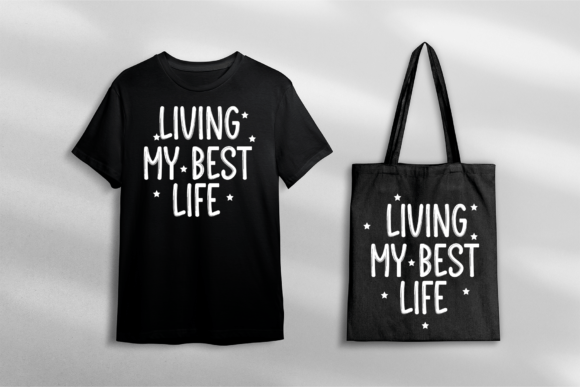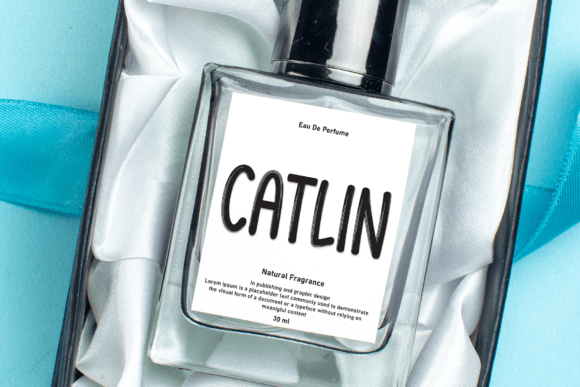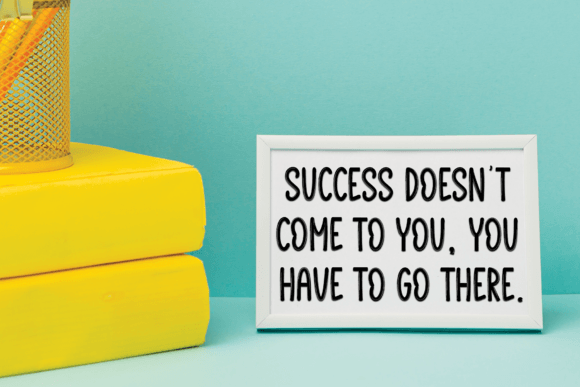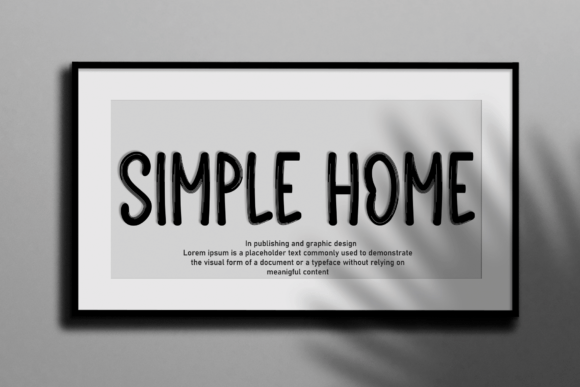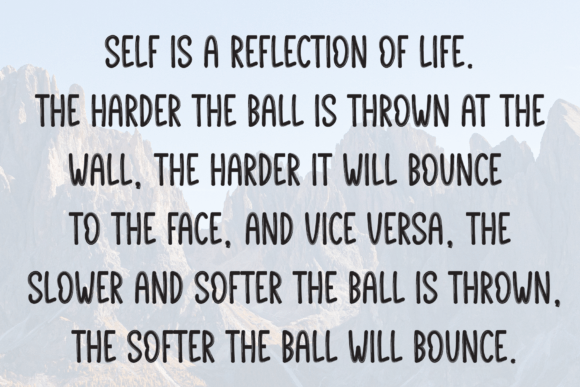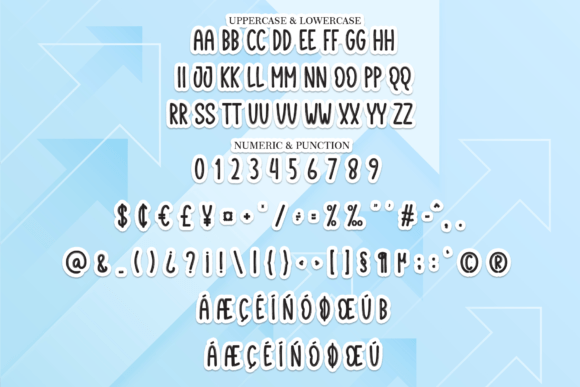
Introducing Advantage Font: The Ultimate Display Font for Modern Designers and Crafters
In the world of design, typography plays a crucial role in conveying messages, expressing creativity, and capturing attention. When it comes to display fonts, designers and crafters are always on the lookout for something fresh, trendy, and versatile. This is where Advantage Font comes in – an all-caps display font that is taking the design world by storm. In this article, we’ll dive into the features, benefits, and uses of Advantage Font, and explore why it’s becoming a favorite among designers and crafters.
What is Advantage Font?
Advantage Font is a stylish, all-caps display font that boasts the perfect amount of trendiness. Its unique design makes it an excellent choice for a wide range of applications, from digital designing and presentations to crafting and greeting card making. With its clean lines, elegant curves, and bold presence, Advantage Font is sure to make your designs stand out from the crowd.
Key Features of Advantage Font
- All-caps design: Advantage Font features an all-caps design that exudes confidence and sophistication. Its bold and eye-catching appearance makes it perfect for headlines, titles, and emphasis.
- Trendy and modern: This font is designed to keep up with the latest design trends. Its modern aesthetic ensures that your designs look fresh and up-to-date.
- Versatile: Advantage Font is incredibly versatile and can be used for a wide range of applications, including digital designing, presentations, crafting, and greeting card making.
- Elegant curves: The font features elegant curves that add a touch of sophistication to your designs.
- Clean lines: The clean lines of Advantage Font ensure that your designs look crisp and professional.
Benefits of Using Advantage Font
So, why should designers and crafters choose Advantage Font for their projects? Here are just a few benefits of using this amazing display font:
- Save time: With Advantage Font, you can create stunning designs in no time. Its bold and eye-catching appearance ensures that your designs grab attention quickly.
- Enhance creativity: This font is designed to inspire creativity and help you think outside the box. Its unique design ensures that your designs stand out from the crowd.
- Professional look: Advantage Font gives your designs a professional look that’s sure to impress clients, colleagues, and friends.
Uses of Advantage Font
Advantage Font is an incredibly versatile font that can be used for a wide range of applications, including:
- Digital designing: Use Advantage Font to create stunning social media graphics, blog posts, and website headers.
- Presentations: Add a touch of elegance to your presentations with this beautiful display font.
- Crafting: Create beautiful handmade cards, scrapbook pages, and other craft projects with Advantage Font.
- Greeting card making: Use this font to create stunning greeting cards for special occasions.
In conclusion, Advantage Font is an amazing display font that’s perfect for designers and crafters looking for a trendy and versatile font. Its all-caps design, elegant curves, and clean lines make it an excellent choice for a wide range of applications. Whether you’re creating digital designs, presentations, or handmade crafts, Advantage Font is sure to take your designs to the next level. So why wait? Give Advantage Font a try today and experience the power of stunning typography!